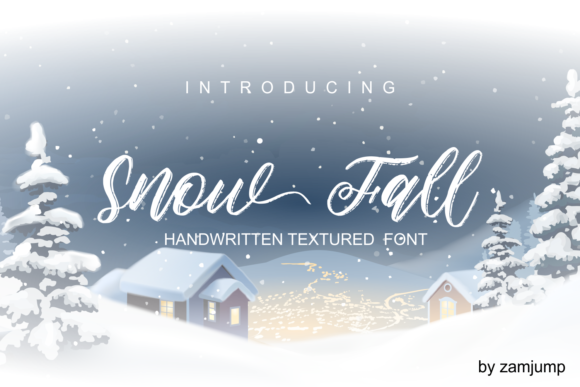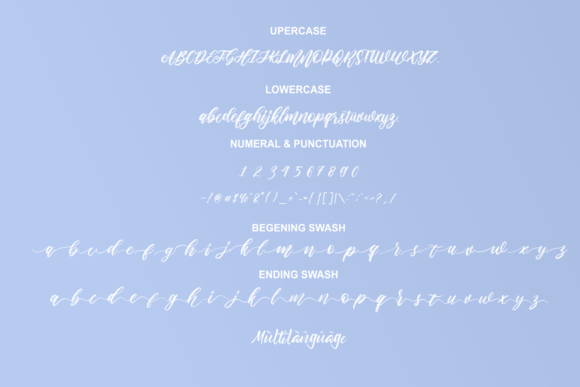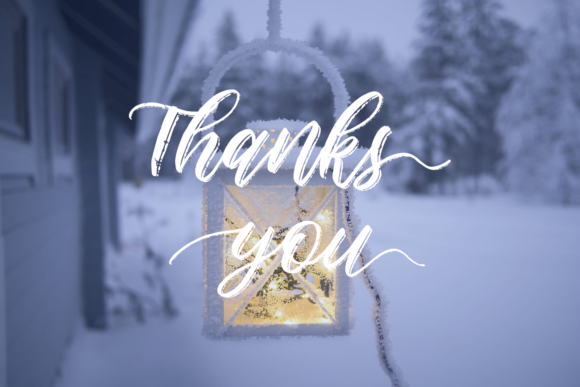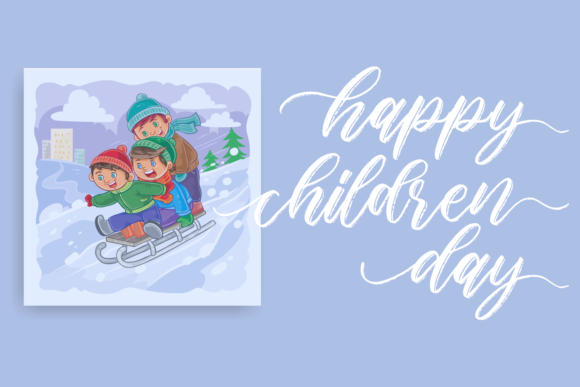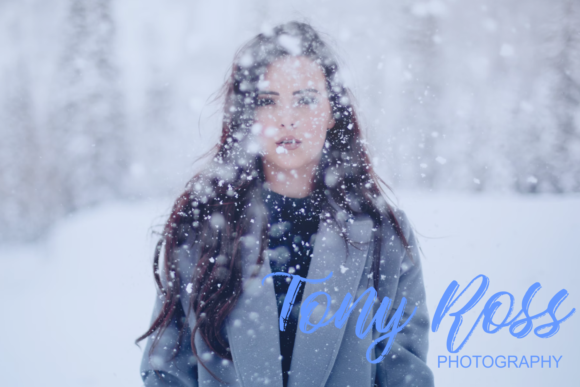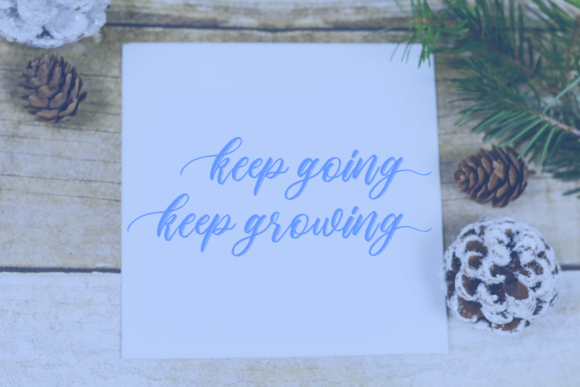
About Snow Fall Font
Snow Fall is a flowing handwritten textured font, described by a simple touch, perfect for your favorite projects. Add this font to your most creative ideas, and notice how it makes them stand out!